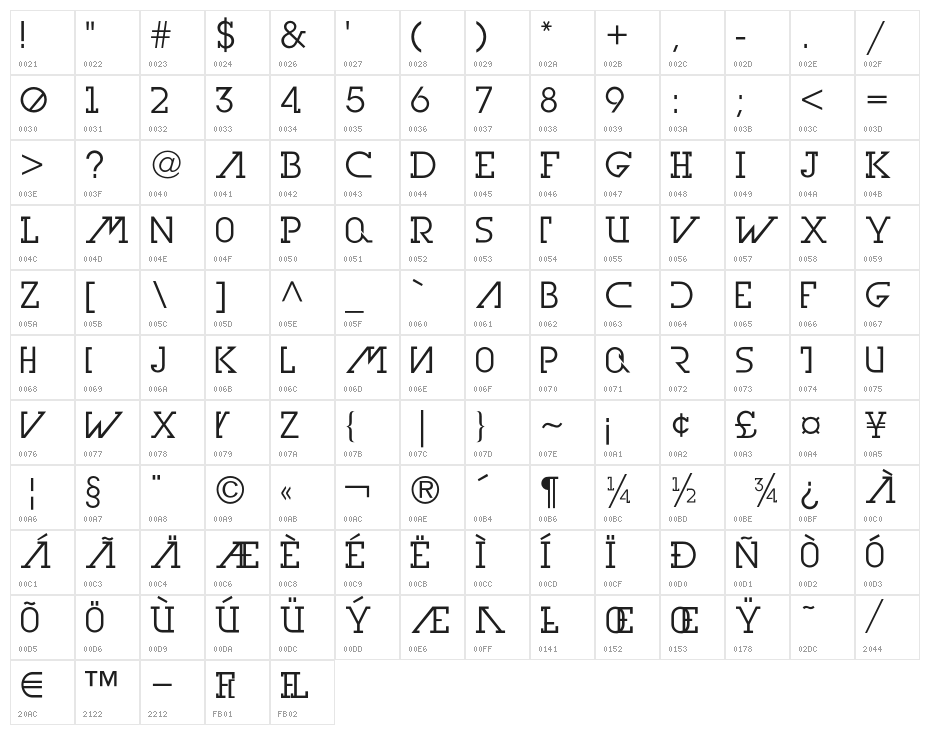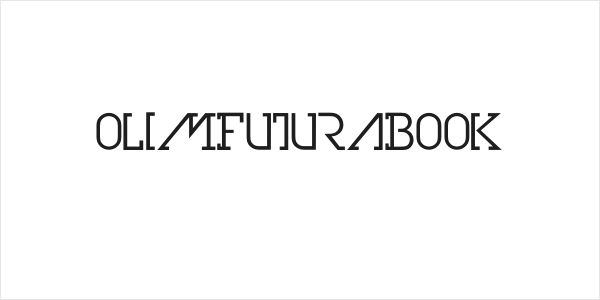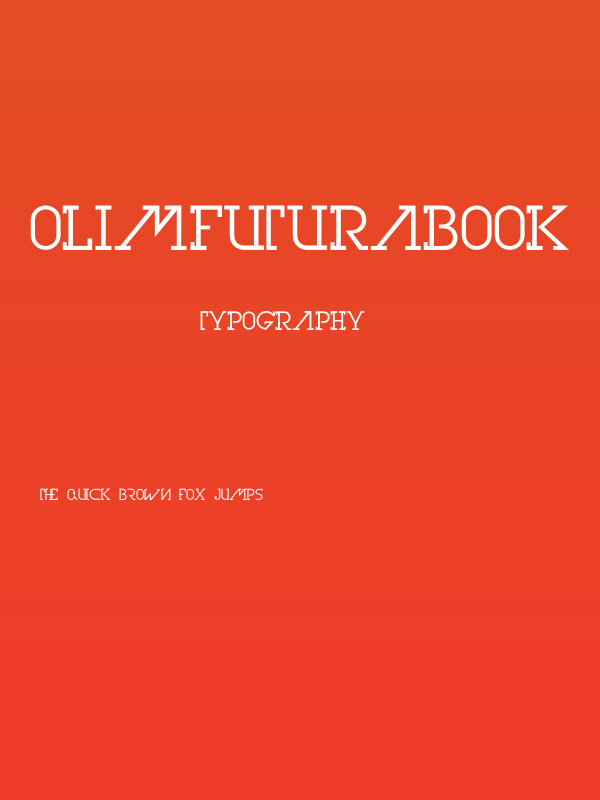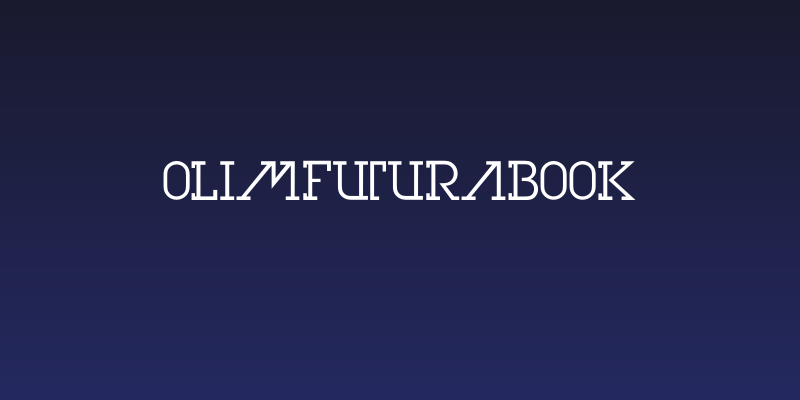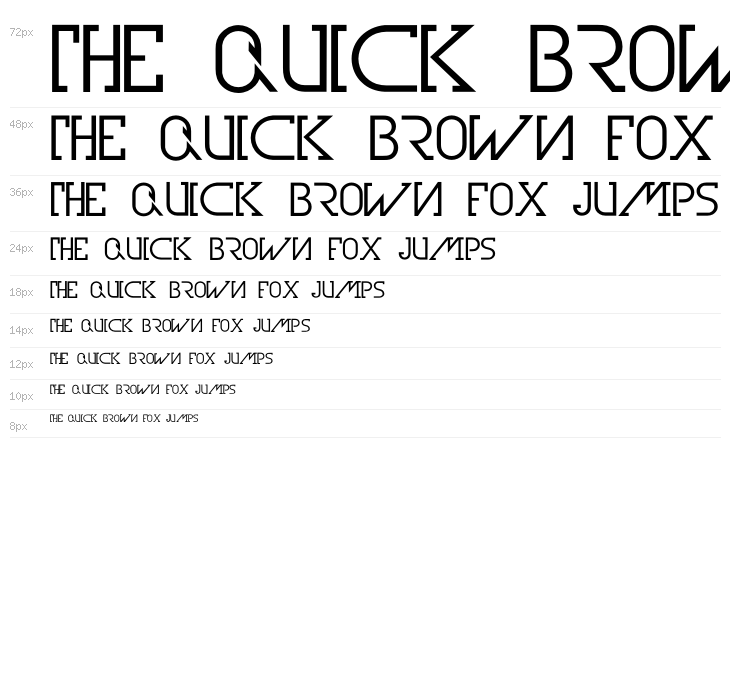
OlimFuturaBook Font
OlimFuturaBook Description
This font features a geometric and modern design with clean lines and a futuristic aesthetic. The uppercase letters are distinct with sharp angles and a consistent stroke width, giving a sense of precision and clarity. The lowercase letters maintain the geometric theme, offering a cohesive look across different text sizes. Numbers are bold and easily readable, while special characters are designed to match the overall style, ensuring uniformity. The font's structure is both functional and stylish, making it suitable for a variety of applications.
| Use Case | Headlines, Logos, Digital Interfaces |
| Proposed Projects | Ideal for technology branding, modern advertising, digital interfaces, and innovative product packaging. |